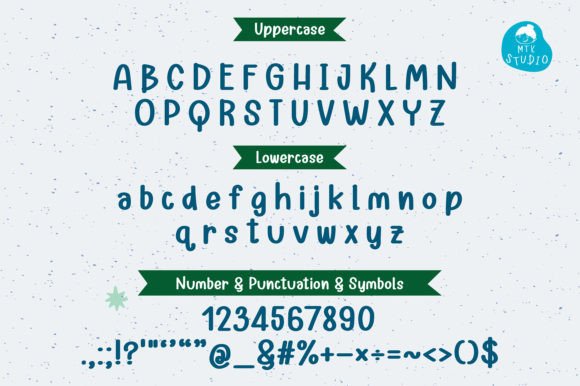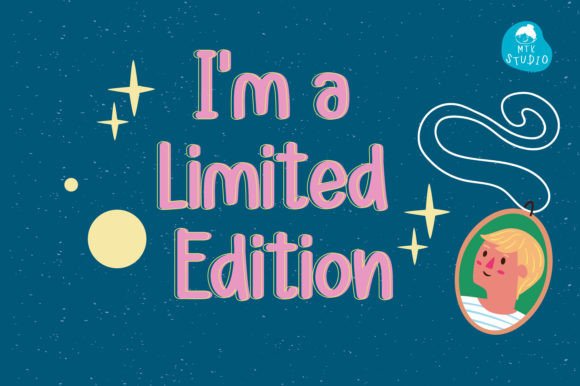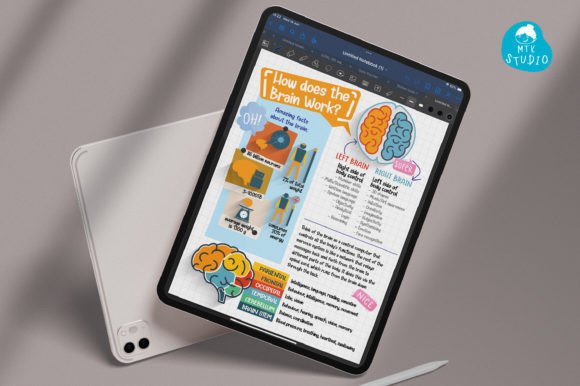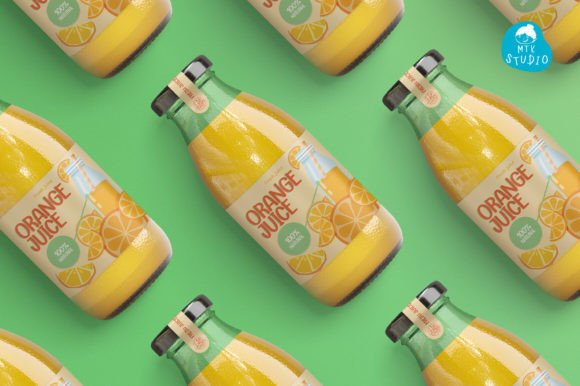
Unlocking the Charm of Handwritten Fonts
Have you ever sat with a blank sheet of paper, a pen in hand, and a burst of creative energy coursing through your veins? The blank slate can be intimidating, but it’s also a thrilling opportunity to bring your ideas to life. As designers, we know that the right font can make all the difference in capturing the essence of our vision.
Enter the Clementine Font, a sweet and friendly handwritten font that’s sure to inspire your next design project. With its natural and unique style, the Clementine Font is the perfect choice for designers looking to add a touch of personality to their work. Its versatility makes it incredibly fitting to a wide range of designs, limited only by your imagination.
Whether you’re working on a branding project, creating a social media campaign, or simply looking for a font to add some whimsy to your blog, the Clementine Font is a valuable addition to your design toolkit.
Clementine Font Key Features
- Size and Resolution: The font is designed to be highly legible at various sizes and resolutions, including small sizes (6pt and below) and low-resolution displays (72 dpi).
- Unique Characteristics: Clementine Font features a unique blend of modern and classic elements, with a distinctive x-height and a range of nuanced letterforms.
- Font Weight and Styles: The font family includes multiple weights and styles, including Regular, Italic, Bold, and Bold Italic.
- Language Support: Clementine Font supports a wide range of languages, including Latin, Greek, and Cyrillic scripts.
- Font Size and Line Height: The font is optimized for use at font sizes between 8pt and 24pt, with recommended line heights ranging from 1.2x to 1.5x the font size.
Clementine Font Review
I recently had the chance to work with the Clementine font, and I’m excited to share my honest thoughts. Overall, I think it’s a lovely font with a lot of potential, but it’s not without its quirks.
- Legibility: The Clementine font is very easy to read, even at smaller sizes. The letterforms are well-spaced, and the x-height is generous.
- Warmth: The font has a warm, inviting feel that’s perfect for creative projects or brand identities that want to convey a sense of approachability.
- Flexibility: The Clementine font comes in a range of weights and styles, making it easy to find the perfect fit for your project.
- Consistency: While the font is generally well-designed, there are some inconsistencies in the letterforms and spacing that can be jarring.
- Line height: The font’s default line height is a bit too tight, which can make text feel cramped and difficult to read.
- International support: The font’s support for non-English languages is limited, which can be a problem for global brands or projects.
Overall, I think the Clementine font is a solid choice for designers who want a warm, approachable typeface. While it’s not perfect, its strengths make it a great option for a wide range of projects. With some tweaks to address its limitations, I think it could be a real standout in the world of typography.
Getting the Most Out of Clementine Font
Use the Clementine Font to create a vintage or retro feel in your designs.
Pair it with bold or distressed fonts for a unique look.
Experiment with different font sizes and colors to add depth and interest to your text.
Use the Clementine Font in invitations, social media graphics, and advertisements to create a playful and eye-catching design.
Apply it to headings and titles to add a touch of whimsy and personality to your content.
Use it in combination with other fonts to create a custom typography style that reflects your brand or message.
Alternatives to Clementine Font
Open Sans is a clean and modern sans-serif font. It’s ideal for digital interfaces, such as websites, apps, and software. Open Sans is more versatile than Clementine Font, with a wide range of weights and styles available.